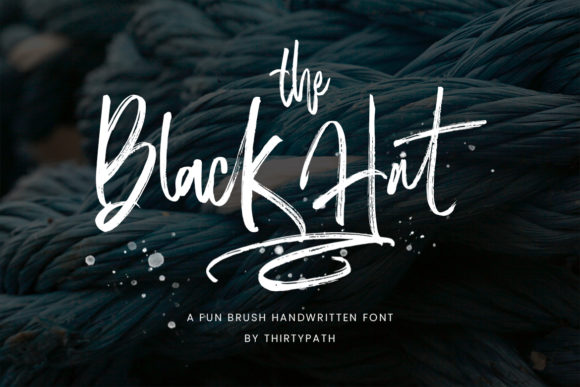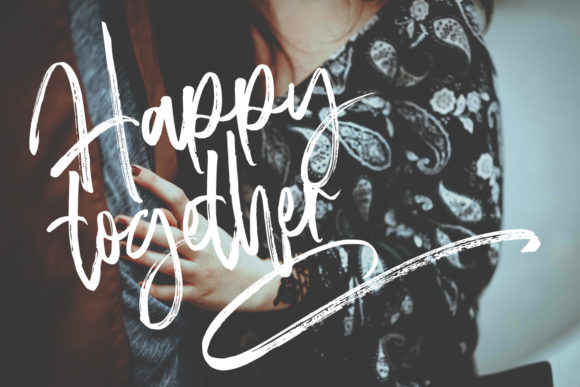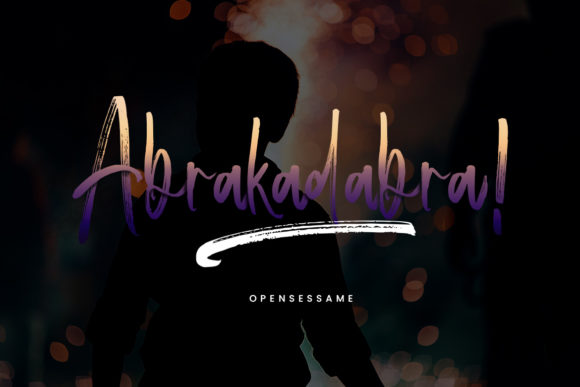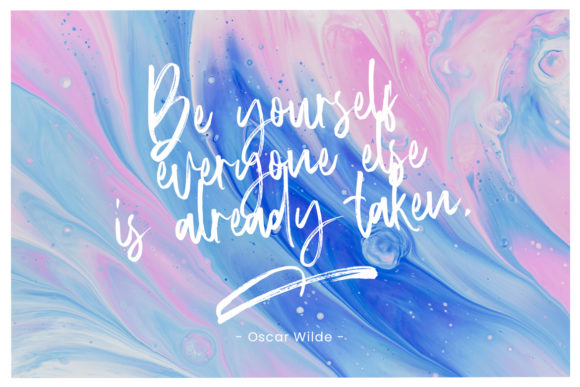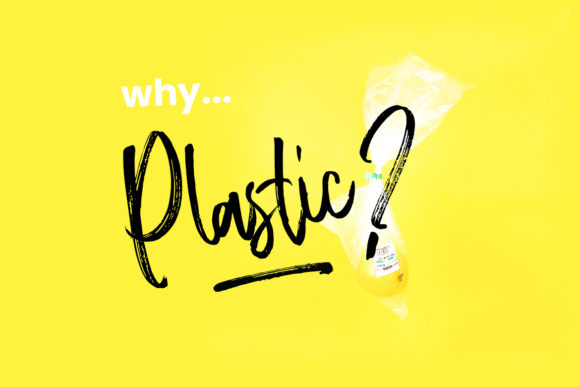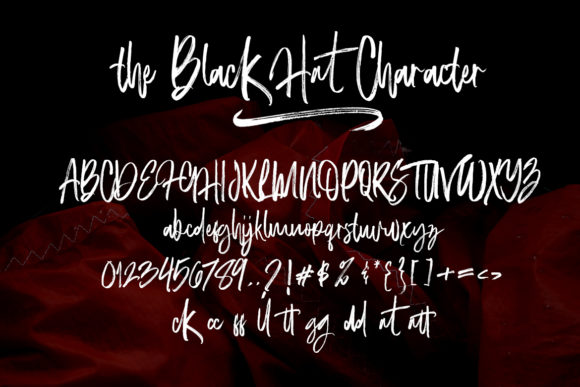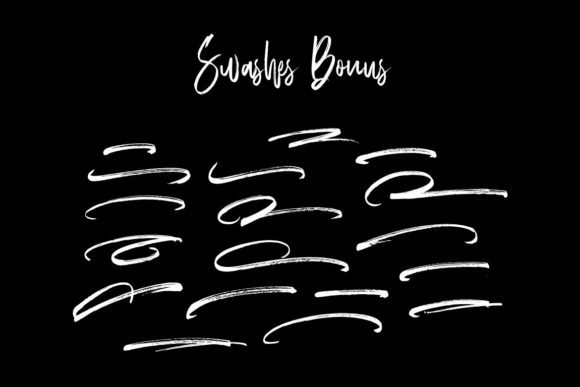
The Black Hat Font
About The Black Hat Font
The Black Hat is a casual, fun handwritten font, created by using a brush pen. Clean and a little bit quirky, this font is the perfect fit for all of your logos, branding, social media, and crafty DIY projects.